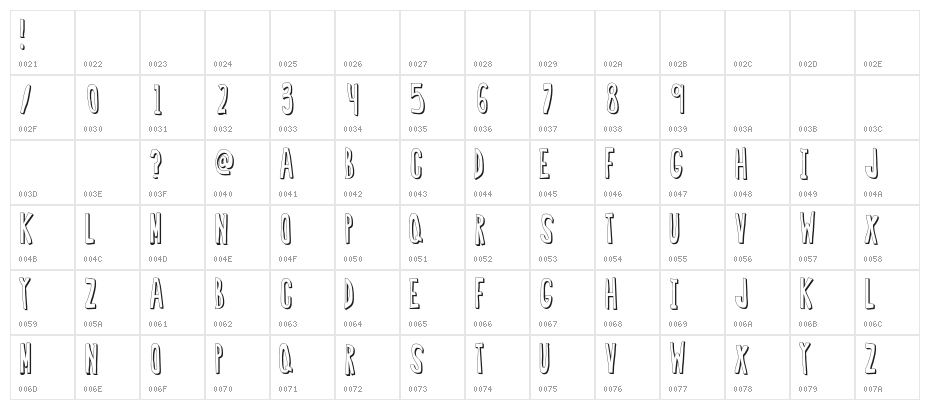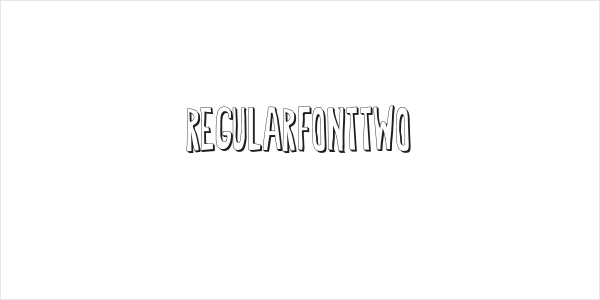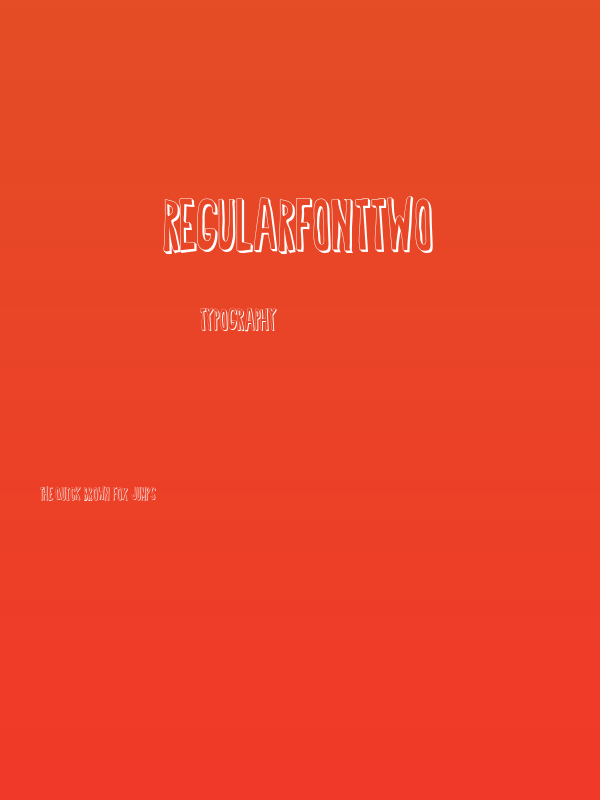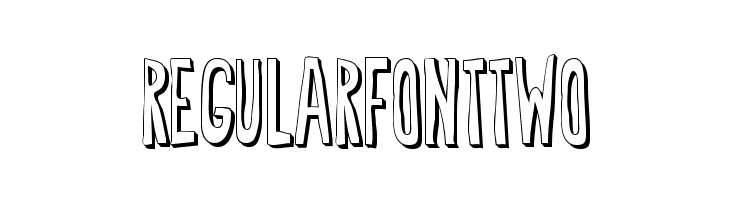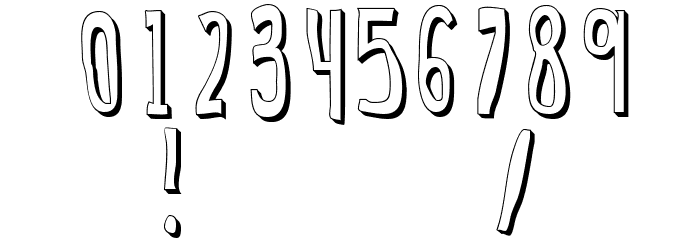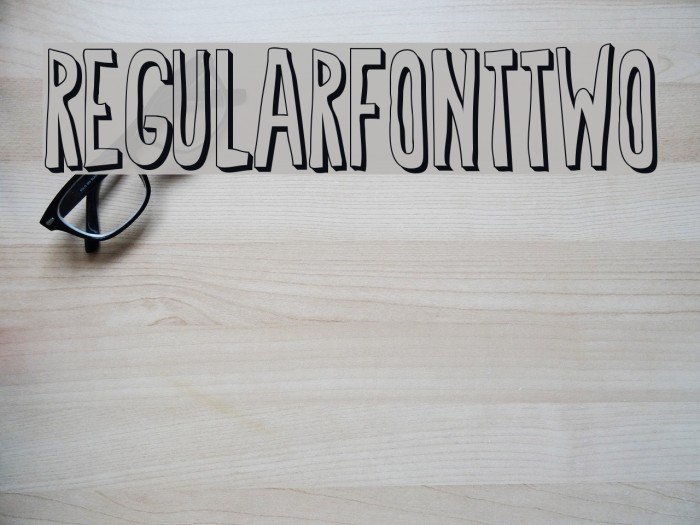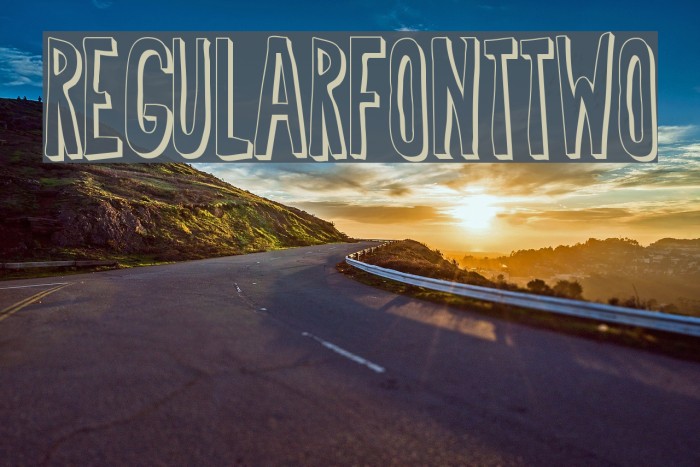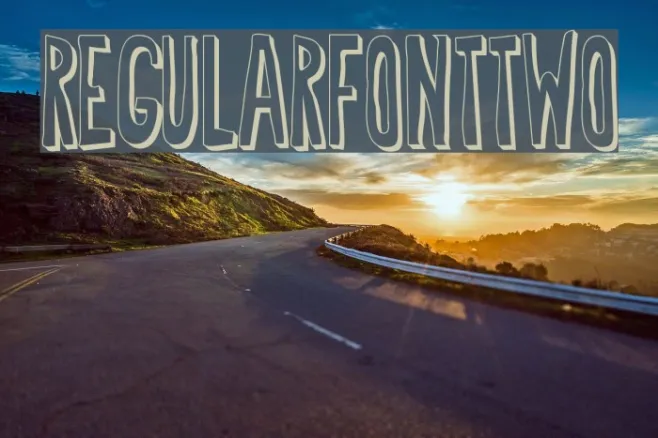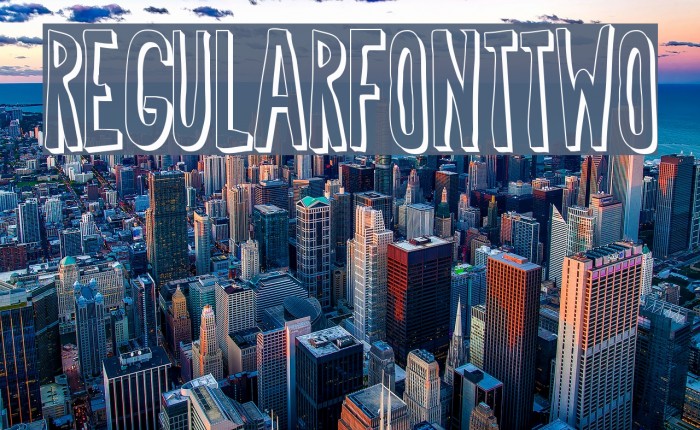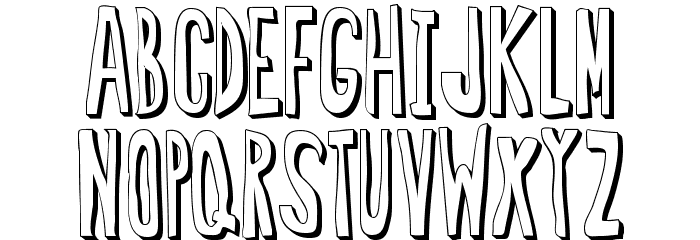
RegularfontTwo Font
RegularfontTwo Description
This font features a bold, playful design with a hand-drawn aesthetic. The characters are outlined with a thick black line, giving them a three-dimensional appearance. The letters are tall and narrow, with a slight slant that adds a dynamic feel. The uppercase and lowercase letters maintain a consistent style, and the numbers are equally bold and expressive. The special characters are creatively integrated, maintaining the overall whimsical style. This font is perfect for projects that require a fun and informal touch.
| Overall Style | Playful, Hand-drawn |
| Use Case | Headlines, Posters, Branding |
| Proposed Projects | Ideal for children's books, comic strips, playful branding, and posters. |